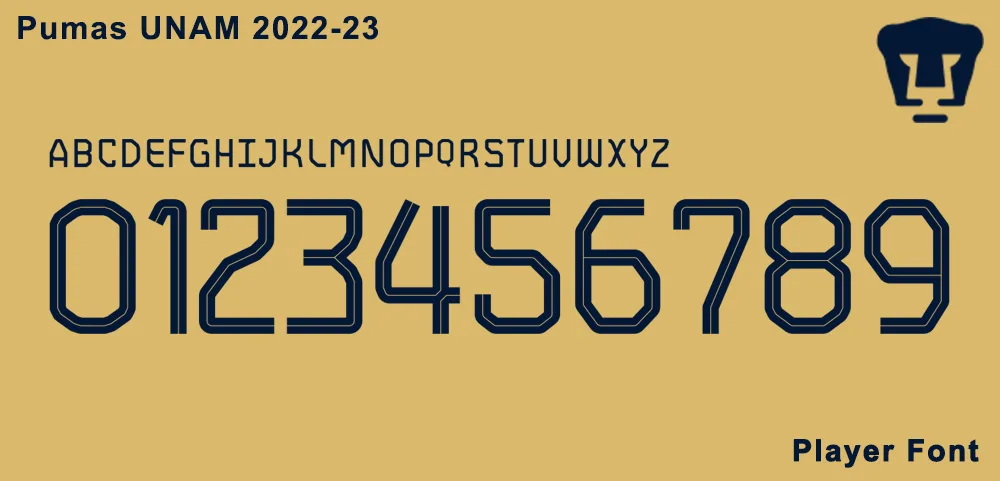
Pumas UNAM 2022-23 Font
Pumas 22-23 new home kit and away kit are released together. At the same time, a new font has been released. The new font has a slim outline with hollow lines in the middle of the number. We provide font files and vector files. The font contains TTF and OTF files. Can be installed and